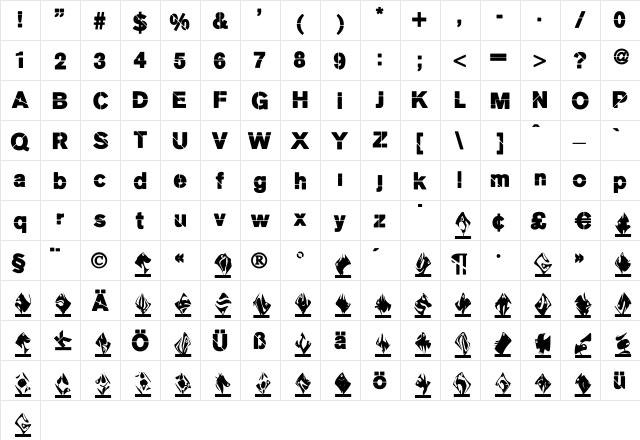
MKStencilsansBlack Regular
Design Context for MKStencilsansBlack Typeface
MKStencilsansBlack has the rough pragmatism of spray-painted stencil signage, adding a raw, street-level authenticity to designs.
Ideal for industrial branding, streetwear, military-adjacent aesthetics, and urban signage projects.
Pro Tip: Pair MKStencilsansBlack with raw, utilitarian design elements — exposed concrete textures, flat colour, and minimal ornamentation suit it well.